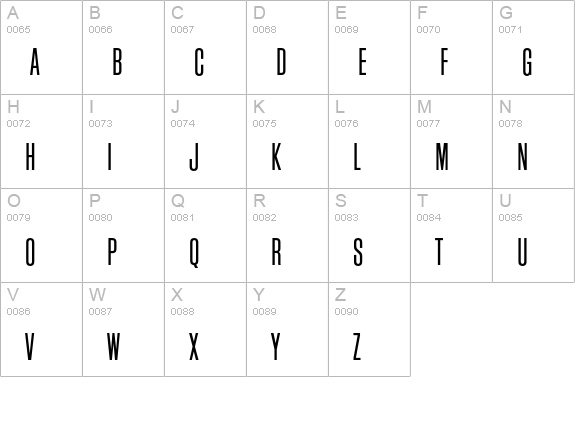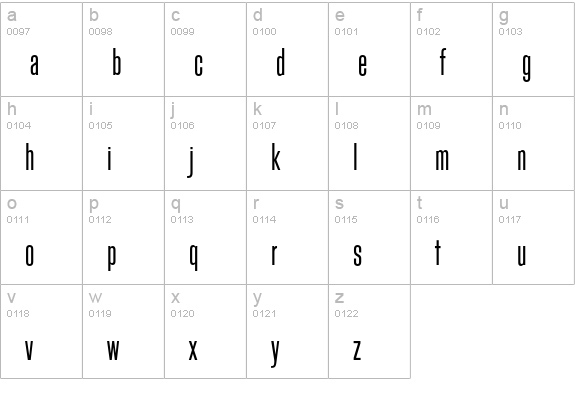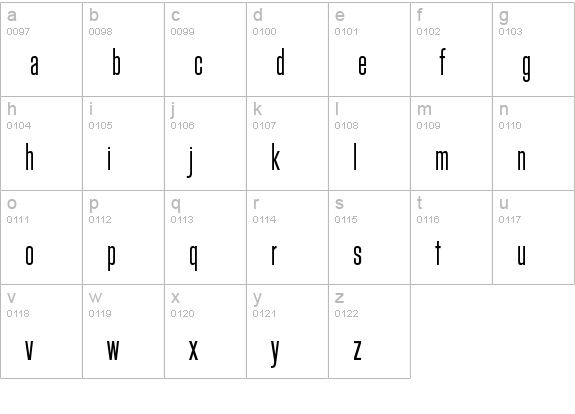
Block Gothic RR Light Extra Condensed is a refined, elegant, condensed-width variant in the Block typeface family \xE2\x80\x94 well suited to elegant body text, refined sub-headings, and luxury branding.
Block Gothic RR Light Extra Condensed is a modern and sleek font that exudes a sense of sophistication and elegance. Its clean lines and condensed form make it ideal for creating sleek and contemporary designs. This font is perfect for headlines, logos, branding, and any project where you want to make a bold statement. The best part is that Block Gothic RR Light Extra Condensed is available for free download at FontsMarket.com. You can easily access this stylish font and use it in your projects without any cost. Don't miss out on the opportunity to enhance your designs with this beautiful typeface. Download it now and add a touch of modern elegance to your creations.